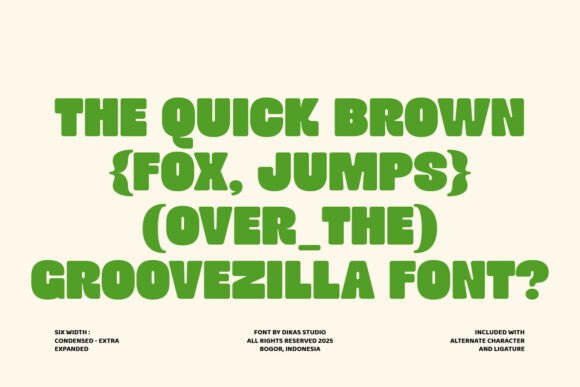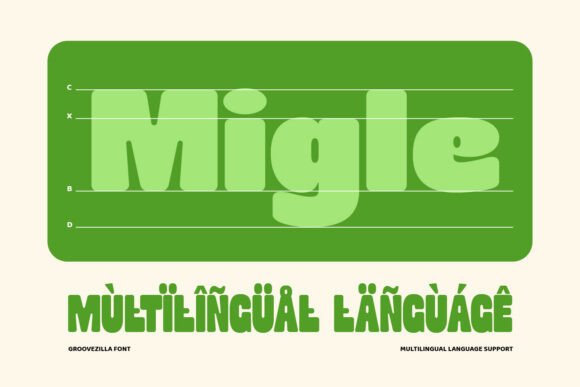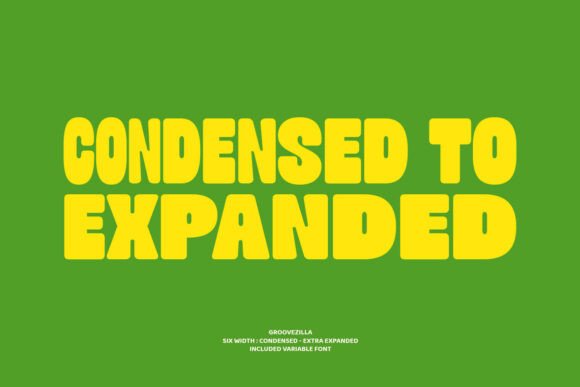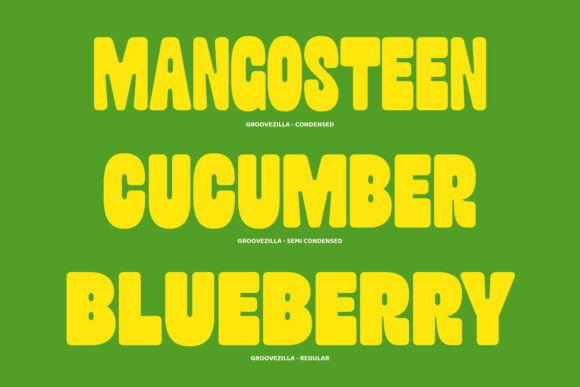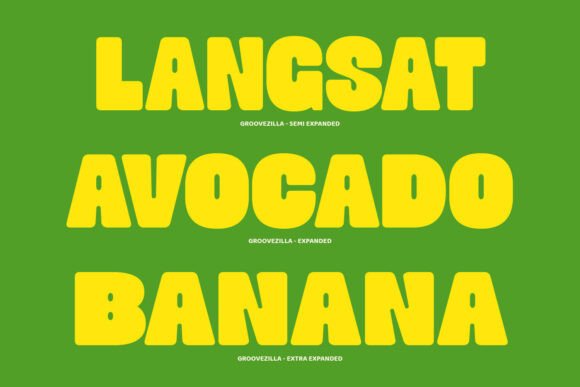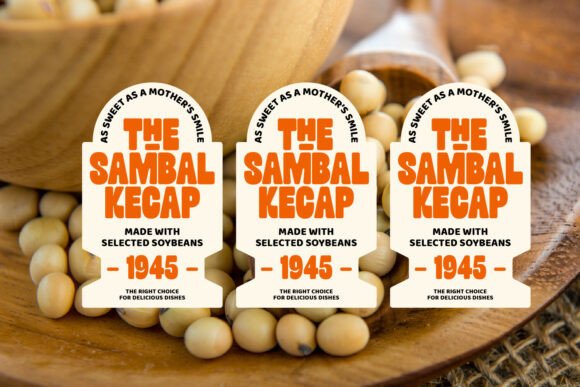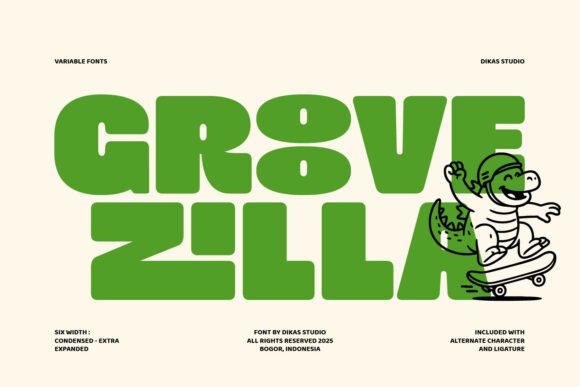
Unleash Your Creativity with Dks Groovezilla Regular Font: The Ultimate Retro Bold Typeface
Are you tired of using the same old fonts in your designs? Do you want to add a touch of fun and personality to your typography? Look no further than the Dks Groovezilla Regular Font, a retro bold font that’s packed with groovy flair and playful charm. Inspired by the funky spirit of vintage aesthetics, Groovezilla is the perfect typeface for designers and crafters who want to make a statement with their work.
What is Groovezilla?
Groovezilla is a retro bold font that’s designed to bring a fun and feel-good vibe to any design. With its soft edges and cheerful personality, this typeface is perfect for projects that want to stand out with confidence and style. Whether you’re crafting a funky logo, a vibrant poster, or an attention-grabbing headline, Groovezilla delivers loud retro energy and modern fun in every letter.
Key Features of Groovezilla
So, what makes Groovezilla so special? Here are just a few of the key features that set this font apart:
- 6 Width Styles: Groovezilla comes with 6 width styles, ranging from Condensed to Extra Expanded, giving you complete control over the look and feel of your typography.
- Variable Font: Groovezilla is also available as a variable font, allowing you to adjust the boldness and width of the font to suit your design needs.
- Alternate Characters and Ligatures: With a wide range of alternate characters and ligatures, you can customize your typography with unique flair and personality.
Groovezilla is the perfect font for designers and crafters who want to add a touch of fun and personality to their work. Whether you’re creating:
- Logos: Use Groovezilla to create a funky and memorable logo that stands out from the crowd.
- Posters: Add a touch of retro flair to your posters with Groovezilla’s bold and playful typography.
- Headlines: Use Groovezilla to create attention-grabbing headlines that demand attention.
Why Choose Groovezilla?
So, why choose Groovezilla over other fonts? Here are just a few reasons:
- Unique Style: Groovezilla has a unique and distinctive style that’s sure to set your design apart from the crowd.
- Versatility: With 6 width styles and a variable font, Groovezilla is incredibly versatile and can be used in a wide range of design applications.
- Easy to Use: Groovezilla is easy to use and customize, making it perfect for designers and crafters of all levels.
| Font Name | Dks Groovezilla Regular Font |
| Author | Dikas Studio |
In conclusion, the Dks Groovezilla Regular Font is a retro bold font that’s perfect for designers and crafters who want to add a touch of fun and personality to their work. With its unique style, versatility, and ease of use, Groovezilla is the perfect typeface for projects that want to stand out with confidence and style. So why wait? Download Groovezilla today and unleash your creativity!